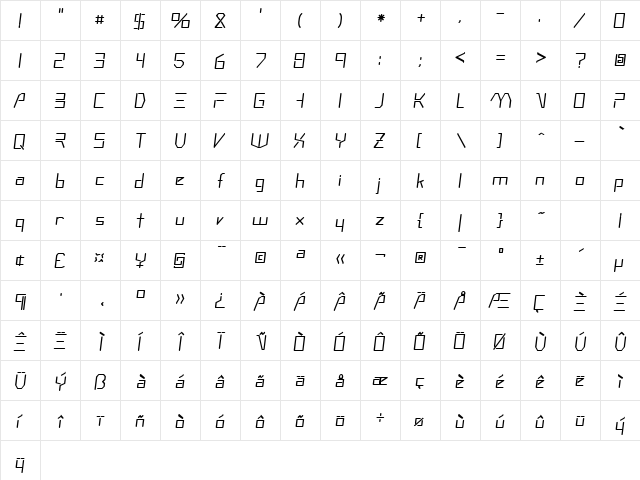
Hammer Oblique
Design Context for Hammer Typeface
Hammer offers clean, dependable letterforms without strong stylistic allegiance, making it a practical choice for designers who need flexibility. Its italic angle brings a sense of urgency and motion to the letterforms.
Pro Tip: Use Hammer for emphasis, pull quotes, and subheadings where its slanted energy can add rhythm to the layout.